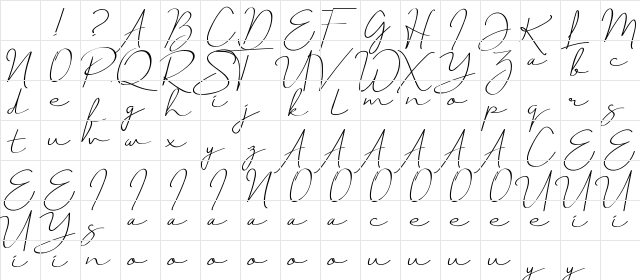
Just Signature is a composed and adaptable typeface that performs quietly and consistently across a wide range of design contexts.
Pro Tip: Use Just Signature in both headline and body roles to test its range before committing to a single application.